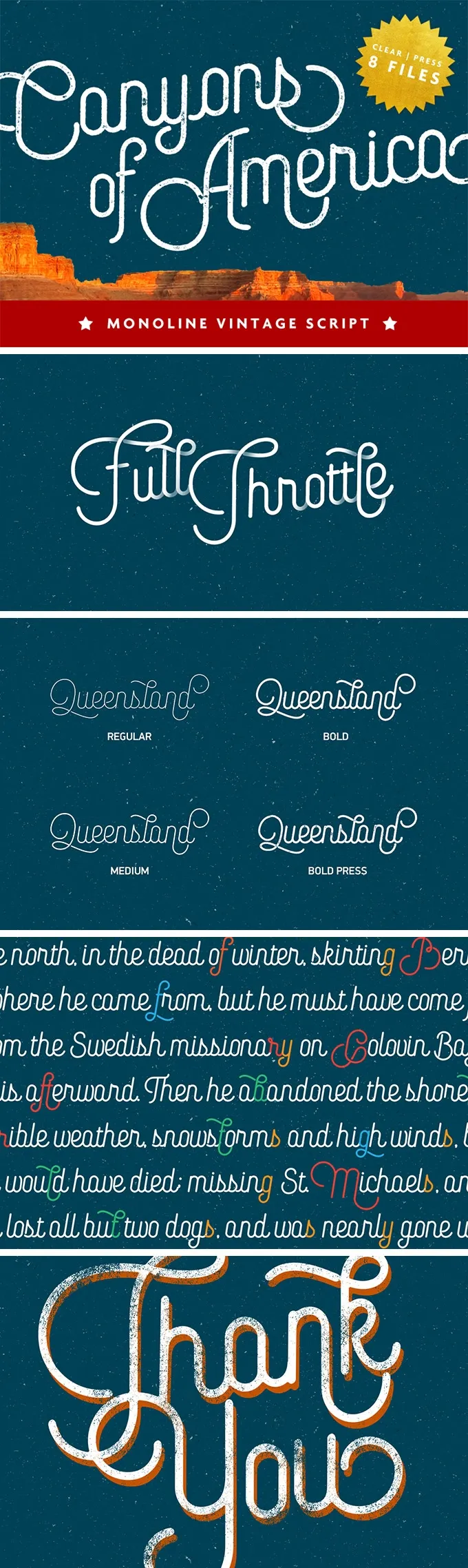
Canyons Vintage Script Font
Canyons is a professionally-crafted vintage script font that will become a wonderful addition to every designer's toolbox! Inspired by nature to convey the meaning of your design projects.
You get a complete font family including 8 fonts in 4 weights (Regular, Medium, Bold, and Bold). Oh and that's not it! There're also 2 styles (Regular and Press effect), expanding the sphere of their use, obviously. This elegant monoline script able to bring a genuine vintage feel to your work also comes with tons of alternates and extras. Give it a go in your banners, printouts, photos, and visual idenitites, for example!